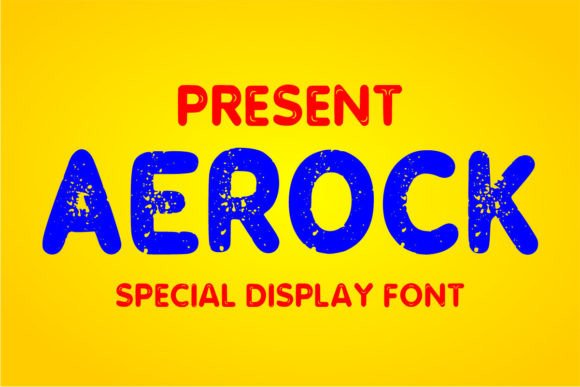
Introducing Aerock, the tantalizing display font that will ignite your creativity and captivate your audience. Immerse yourself in a world of boundless possibilities as you craft designs that resonate with joy and energy. Aerock is not just a font; it's an experience that transforms words into captivating works of art.
At the heart of Aerock lies a spirit of exuberance and playfulness. Its bold, playful style is perfect for adding a touch of whimsy and wonder to any project. Whether you're creating eye-catching logos, stunning invitations, or vibrant greeting cards, Aerock has the power to elevate your designs to new heights.
With Aerock, you can turn your creative visions into reality. Its versatility knows no bounds, adapting seamlessly to any project that calls for a touch of fun and vibrancy. Unleash your imagination and embark on a creative journey where every design tells a captivating story.
Let Aerock be your creative companion as you embark on a design adventure that knows no limits. Discover the joy of effortless creativity and watch as your designs come alive with a captivating energy that draws your audience in and leaves them spellbound.
Make Aerock your font of choice and unlock a world of creative possibilities. Its playful charm and boundless versatility will transform your designs into captivating masterpieces that leave a lasting impression. Experience the Aerock difference today and let your creativity soar to new heights.